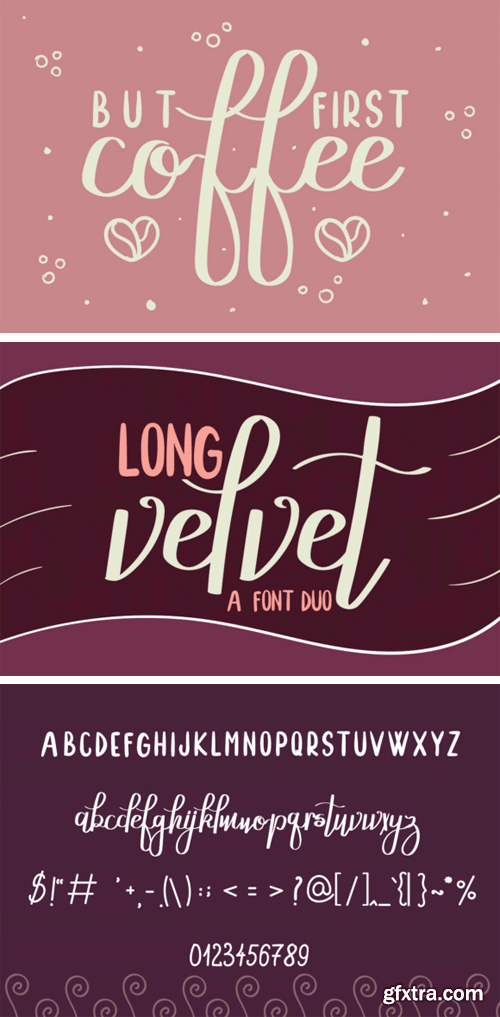
Long Velvet Font
Long Velvet is a font duo, wrapped all together in 1 single font. The uppercase letters of Long Velvet are fun display letters, and the lowercase are a fun handwritten font. Both the uppercase and lowercase have in common that they are smooth, and that the letters flow on your screen.